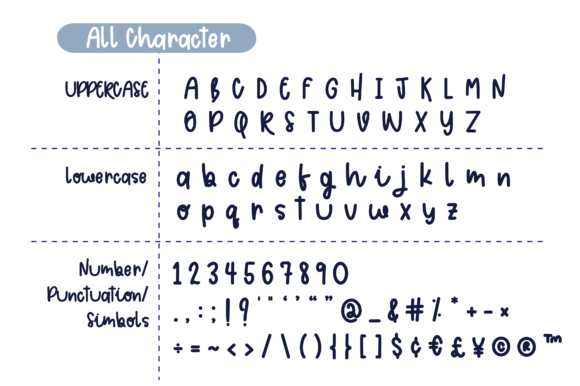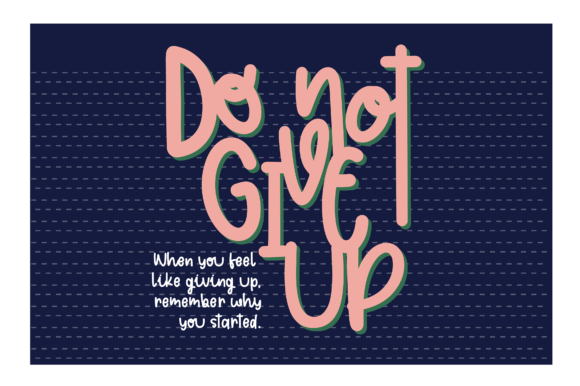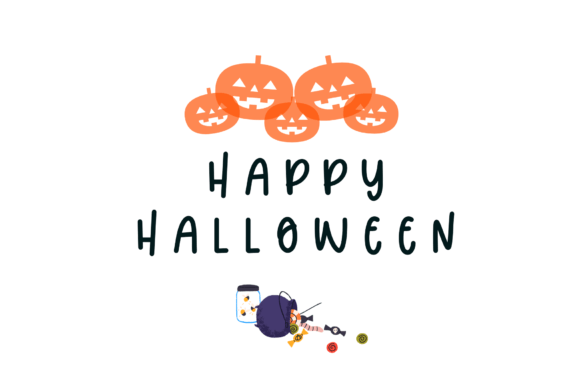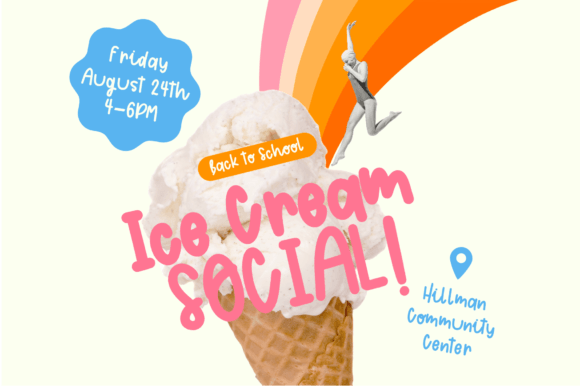
Discover the Charming Coldbrew Font: Elevate Your Digital Content with a Personal Touch
In the realm of digital design, finding the perfect font that combines style, simplicity, and a personal touch can be a daunting task. However, the Coldbrew Font emerges as a delightful solution, offering a unique blend of playfulness and sophistication. This handwritten typeface is not just a font; it’s an experience that brings warmth and engagement to any content it’s applied to. In this article, we’ll dive into the organic charm of the Coldbrew Font, exploring its features, benefits, and the creative possibilities it offers to designers, crafters, and digital enthusiasts.
The Essence of Coldbrew Font
Coldbrew Font is a masterpiece of modern typography, designed to mimic the warmth and intimacy of handwritten notes. Its appeal lies in its ability to convey a sense of personal connection, making digital content feel more approachable and inviting. This font is a perfect blend of neat handwriting and cute display elements, ensuring that your digital study notes, collage notes, and other textual content stand out with an artistic flair.
Key Features of Coldbrew Font
- Handwritten Elegance: Coldbrew boasts a beautiful, handwritten appearance that adds a touch of elegance and sophistication to any project.
- Playful Sophistication: It strikes the perfect balance between playfulness and refinement, making it suitable for a wide range of applications.
- Digital Planning and Note-taking: Ideal for digital planners and note-takers, Coldbrew transforms ordinary text into an engaging and personalized message.
- Sans Serif Nature: With its sans serif design, Coldbrew embodies a simple yet creative ethos, combining neatness with artistic expression.
- Versatility: This font is versatile and can be used in various projects, from digital art and crafts to study notes and collage making.
For designers and crafters, Coldbrew Font is a treasure trove of creative possibilities. It allows for:
- Enhanced Creativity: With Coldbrew, designers can infuse their projects with a personal touch, making their work stand out in a crowded digital landscape.
- Time Efficiency: The font’s clear and readable design saves time in project development, ensuring that your work is not only beautiful but also efficient.
- Cross-Platform Compatibility: Coldbrew can be used across various digital platforms, ensuring consistency and quality in your digital creations.
- Inspiration: The font’s unique style serves as a source of inspiration, encouraging designers and crafters to experiment with new ideas and themes.
Transforming Digital Content into Art
Coldbrew Font is more than just a typographical choice; it’s a tool for transformation. It has the power to turn mundane digital text into visually appealing artwork. Whether you’re creating digital study notes, crafting collages, or designing engaging content for your audience, Coldbrew adds that special touch that captures attention and fosters connection.
Tips for Using Coldbrew Font Effectively
- Mix and Match: Combine Coldbrew with other fonts for a unique contrast that adds depth to your designs.
- Play with Sizes: Experiment with different font sizes to create visual hierarchy and emphasize key points.
- Color It Right: Choose colors that complement the warmth and organic feel of Coldbrew, enhancing its natural charm.
- Keep It Simple: Don’t overcomplicate your design. Coldbrew’s simplicity and elegance shine best when paired with clean and straightforward layouts.
Coldbrew Font is a delightful addition to the world of digital typography, offering a unique blend of playfulness, sophistication, and personal warmth. Whether you’re a designer, crafter, or simply someone who appreciates the beauty of handwritten notes, Coldbrew is an excellent choice for elevating your digital content. Its versatility, readability, and artistic flair make it an indispensable tool for anyone looking to add a touch of elegance and creativity to their work. Embrace the organic charm of Coldbrew Font and transform your digital creations into engaging, personalized masterpieces.